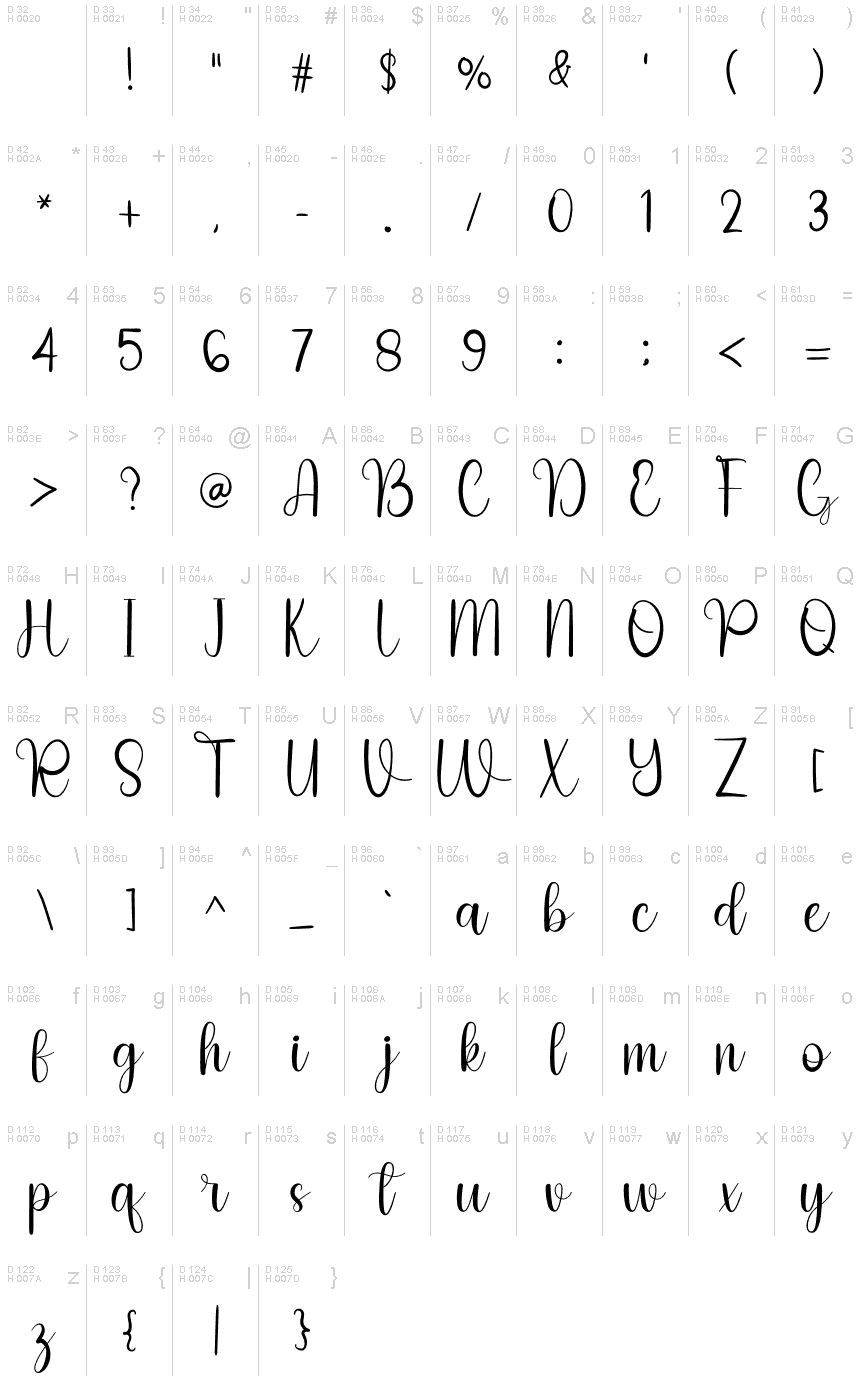
Sandy
Sandy, the semi-light and semi-condensed handwritten font by Belina Studio, brings a playful yet elegant touch to any project. With its whimsical curves and organic flow, it is perfect for designs that require a personal touch such as wedding invitations, greeting cards, and branding materials for boutique businesses. Its versatile nature also makes it suitable for digital content like social media graphics or blog headers. Sandy's unique style adds a touch of authenticity to any project while maintaining legibility and easy readability. Try Sandy today and add some personality to your design!
the latest style letters are perfect for wall displays, wedding invitations, social media post logos, advertisements, product packaging, product designs, labels, photography, watermarks, invitations, stationery, and any project that requires taste handwriting.